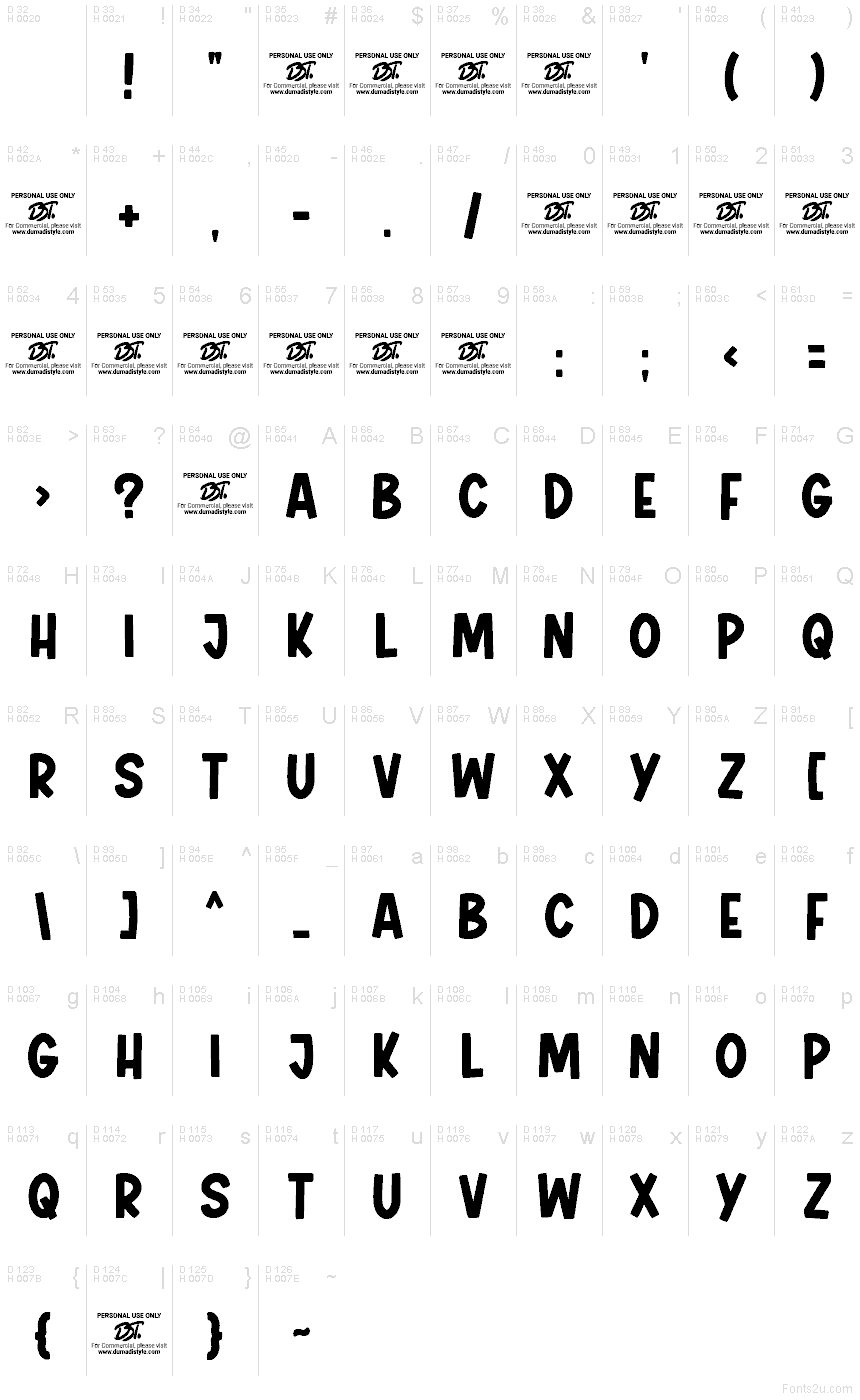
Walaweh
Walaweh font by DumadiStyle combines a bold appearance with structured design, creating a strong visual impact. This cartoon display font is defined by its clear readability and modern feel, making it ideal for designs that need to grab attention while still remaining legible and enjoyable to read.
A free display font, Walaweh works perfectly in countless types of media including fun poster designs or magazine covers as well as pamphlets, flyers, social media posts, photo captions, applications, user interfaces (UI), product packaging templates etc. It will also fit with video games and animated applications!